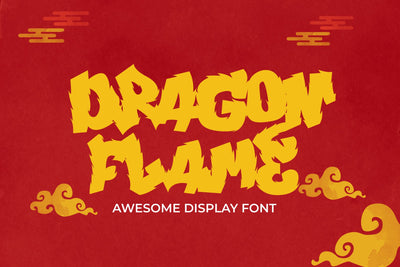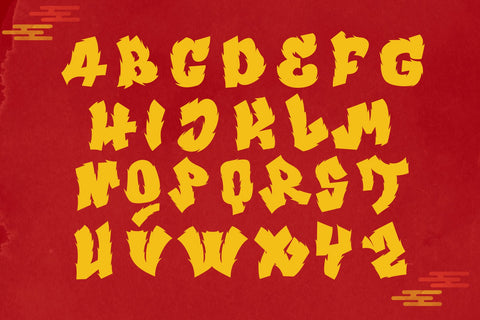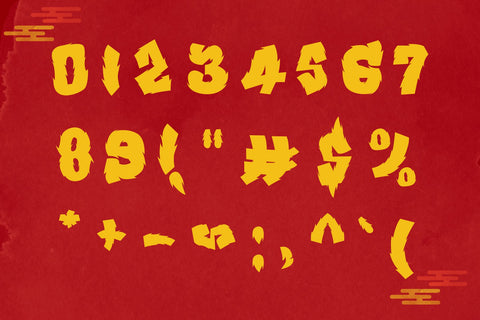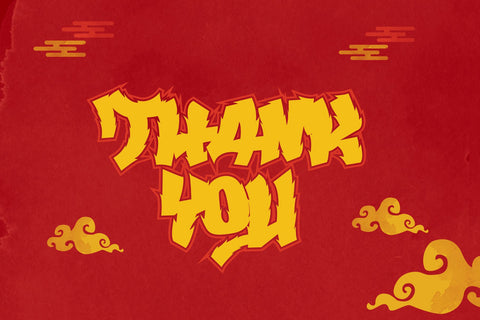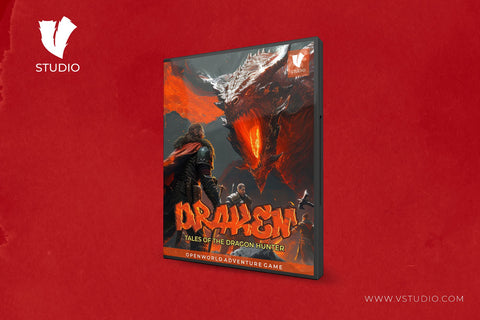
Dragon Flame - Gaming Display Font
Introducing "Dragon Flame," a spectacular display font whose characters channel the raw power and mystique of dragon fire. Designed with boldness in mind, this font is a thrilling choice for projects steeped in adventure and the fantastical. Its dynamic typography ignites an atmosphere of excitement, making it an exceptional option for game interfaces, posters with an adventurous flair, or fantasy literature covers. Let "Dragon Flame" stir the imagination, adding an invigorating spark to your creative endeavors. Harness this font's one-of-a-kind energy to make your designs stand out.